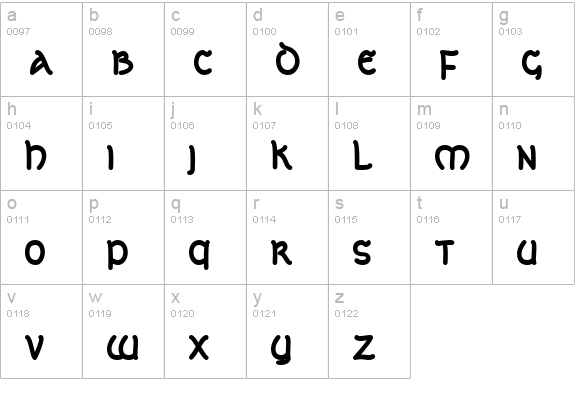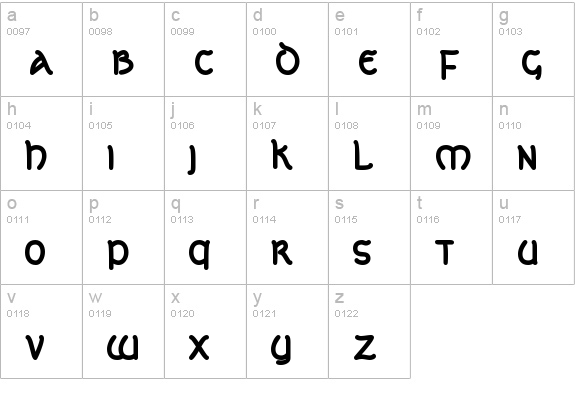
Celtic Lion AOE Bold Font Details
Celtic Lion AOE Bold is a strong, high-contrast variant in the Celtic typeface family \xE2\x80\x94 well suited to headlines, attention-grabbing titles, and strong calls-to-action.
Celtic Lion AOE Bold font embodies the majestic and intricate beauty of Celtic artistry, with its bold and powerful design reminiscent of the strength and courage of a lion. This font is perfect for adding a touch of ancient mystique and strength to your projects, whether they be logos, posters, or branding materials. For those seeking a versatile and eye-catching typeface that stands out from the crowd, Celtic Lion AOE Bold font is the perfect choice. Its unique blend of Celtic-inspired motifs and modern design elements make it a truly standout font for any project. Best of all, Celtic Lion AOE Bold font is available for free download at FontsMarket.com. Take advantage of this opportunity to enhance your designs with this stunning and impactful font today!